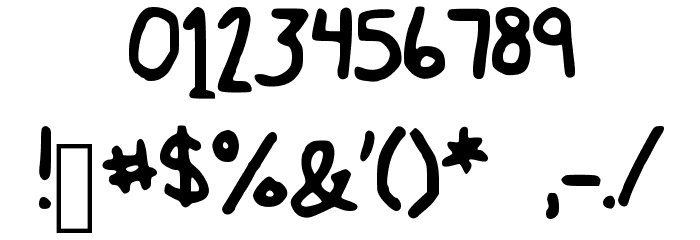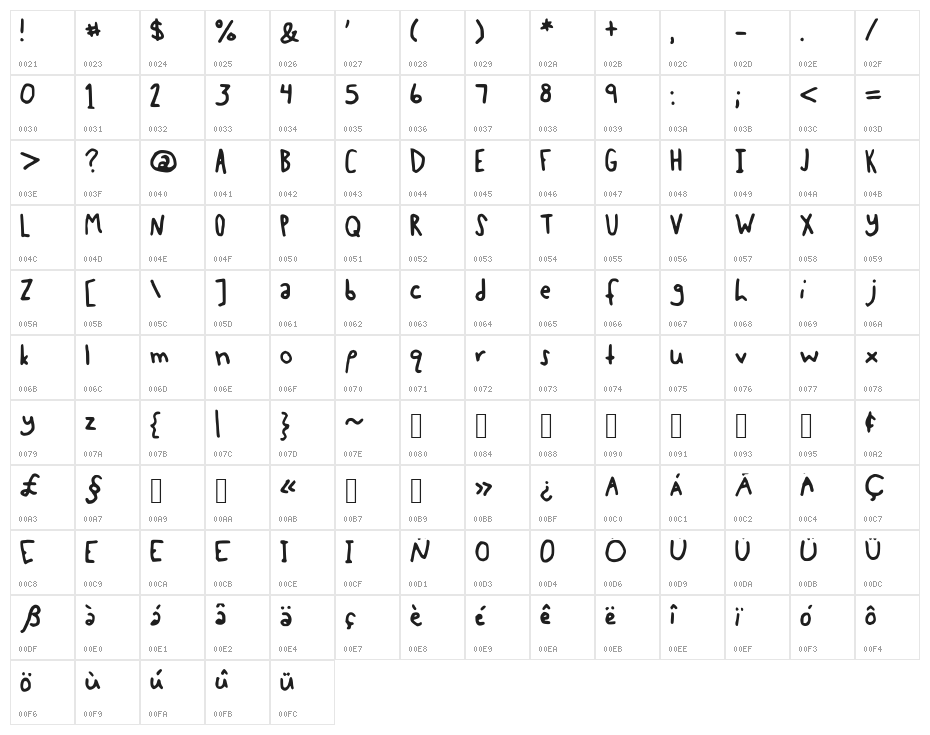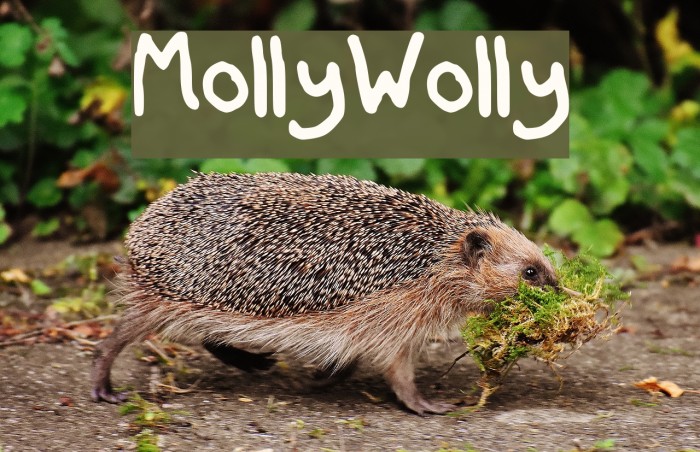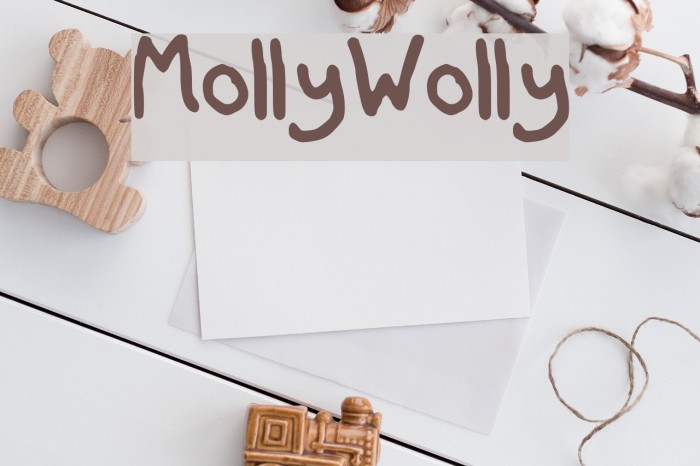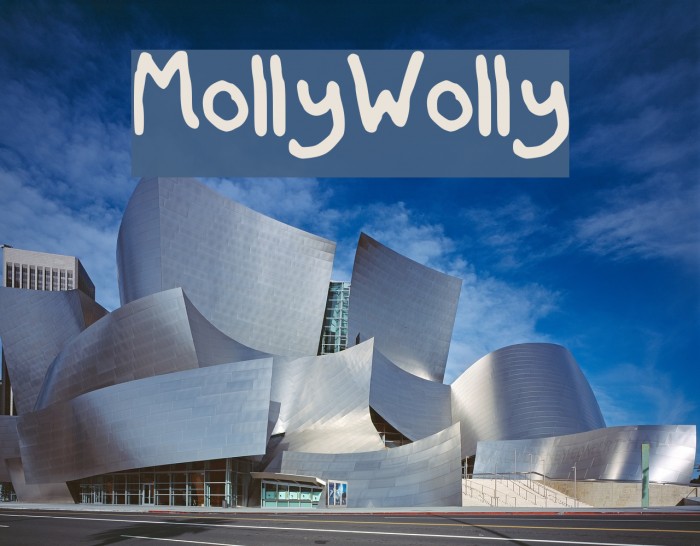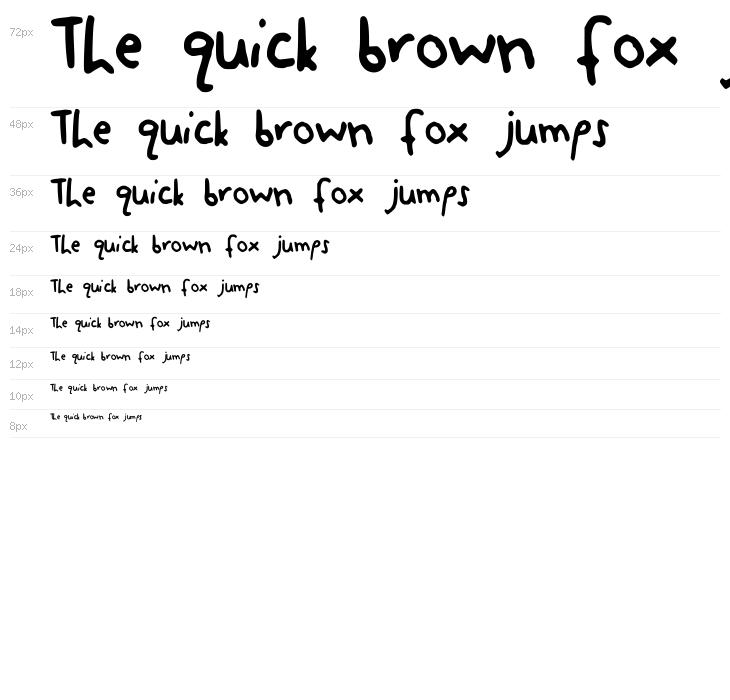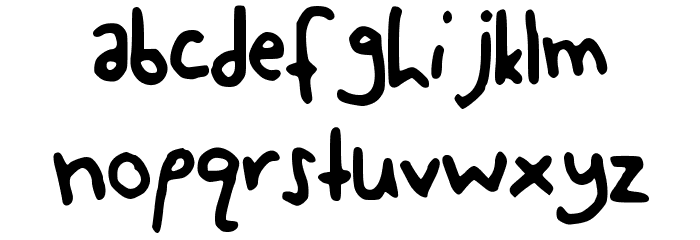
MollyWolly Font
MollyWolly Description
This playful and whimsical font features a hand-drawn style with irregular, organic shapes that give it a casual and friendly appearance. The letters are slightly uneven, adding to its charm and making it ideal for informal and creative projects. The uppercase and lowercase characters maintain a consistent style, with rounded edges and a slightly bouncy baseline. Numbers and special characters are included, matching the overall playful aesthetic. This font is perfect for projects that require a personal touch, such as children's books, greeting cards, or DIY crafts.
| Proposed Projects | Children's books, greeting cards, DIY crafts, informal branding. |